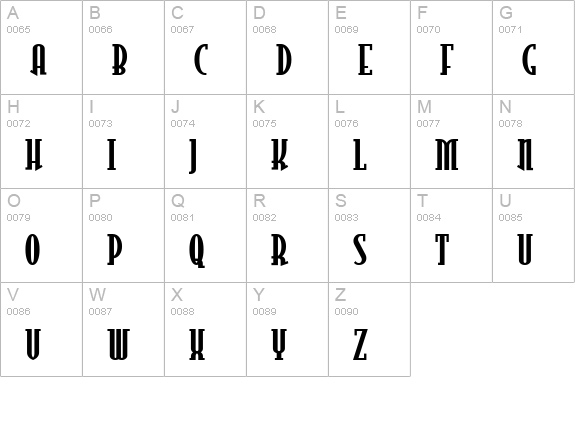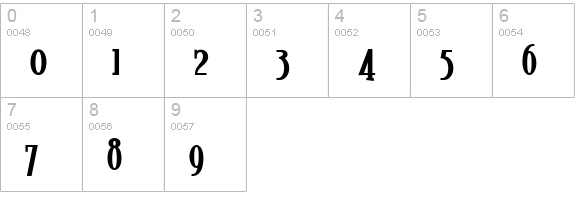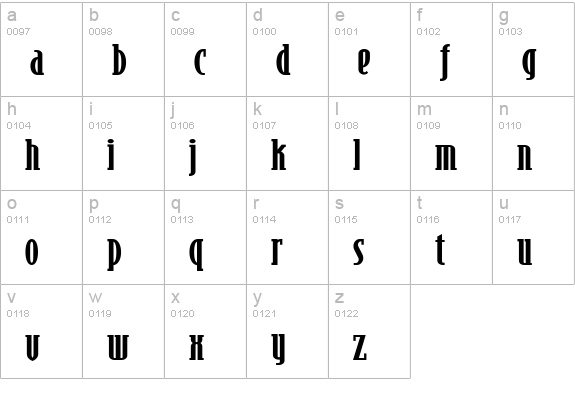
Risky Business Old style NF Font Details
Risky Business Old style NF font is a vintage-inspired typeface that exudes nostalgia and charm. With its classic letterforms and unique styling, this font is perfect for adding a touch of retro flair to your designs. Whether you're working on a poster, logo, or branding project, Risky Business Old style NF font will bring a timeless elegance to your work. The best part? Risky Business Old style NF font is available for free download at FontsMarket.com. You can easily access this stunning font and elevate your creative projects without any cost. Don't miss out on the opportunity to add this versatile typeface to your font collection today!